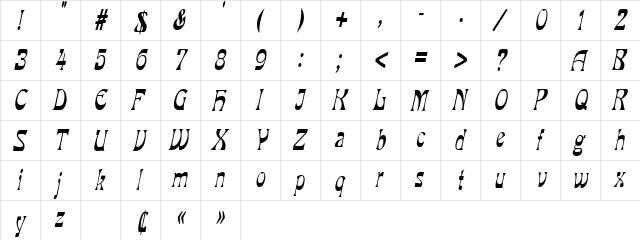
VanVeenCondensed Italic
Design Context for VanVeenCondensed Typeface
VanVeenCondensed is a composed and adaptable typeface that performs quietly and consistently across a wide range of design contexts. The dynamic lean of this cut emphasises speed and emphasis in any layout. The condensed width makes it efficient for tight spaces without sacrificing legibility.
Pro Tip: Use VanVeenCondensed for emphasis, pull quotes, and subheadings where its slanted energy can add rhythm to the layout.